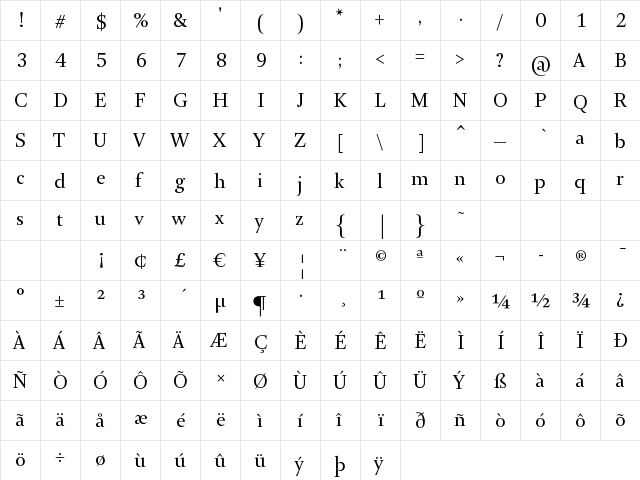
ArnhemFine-Normal Regular Font Preview
ArnhemFine-Normal Regular
ArnhemFine-Normal Regular Font Details
Design Context for ArnhemFine-Normal Typeface
ArnhemFine-Normal takes a measured approach to typography — its balanced proportions and neutral character make it a reliable workhorse for both digital and print work.